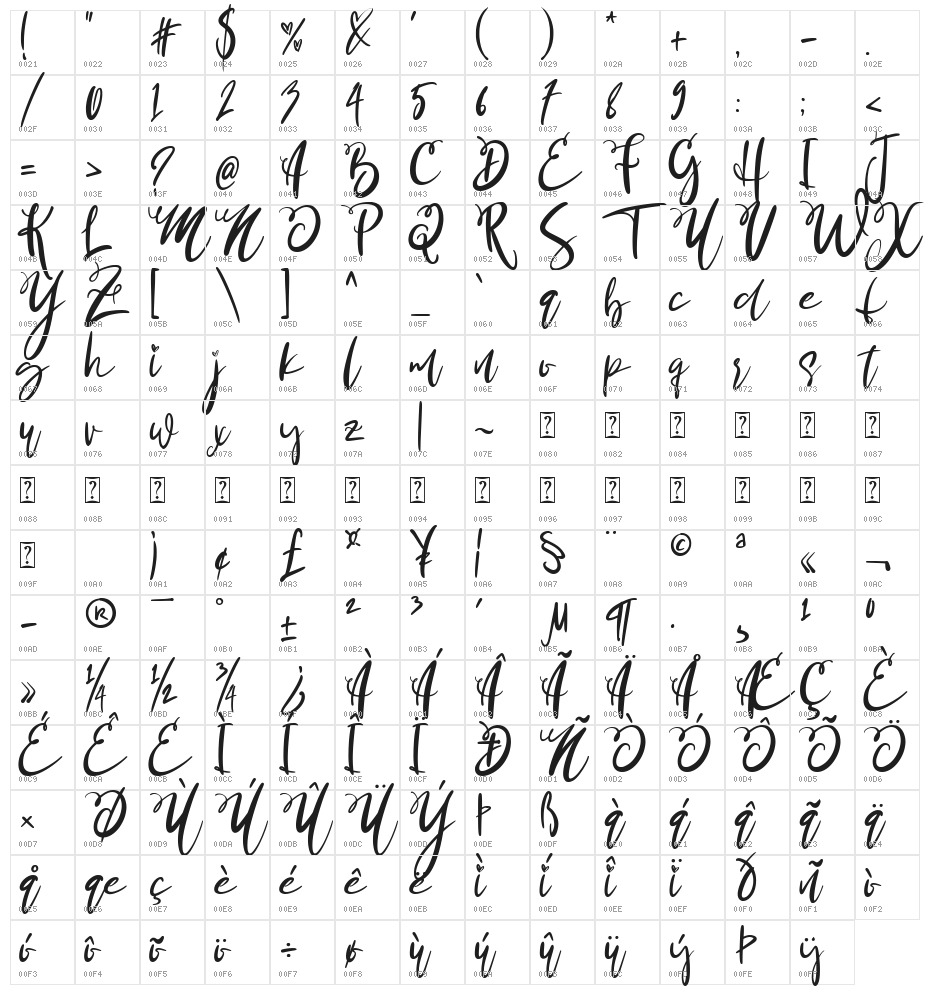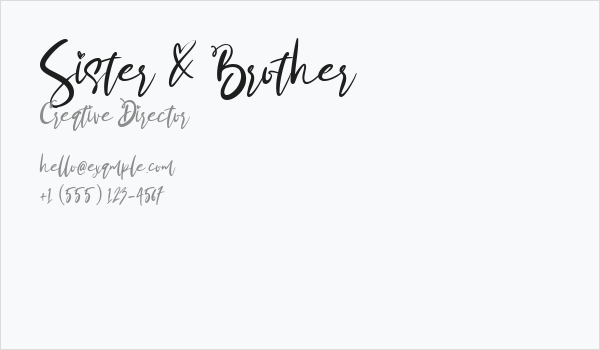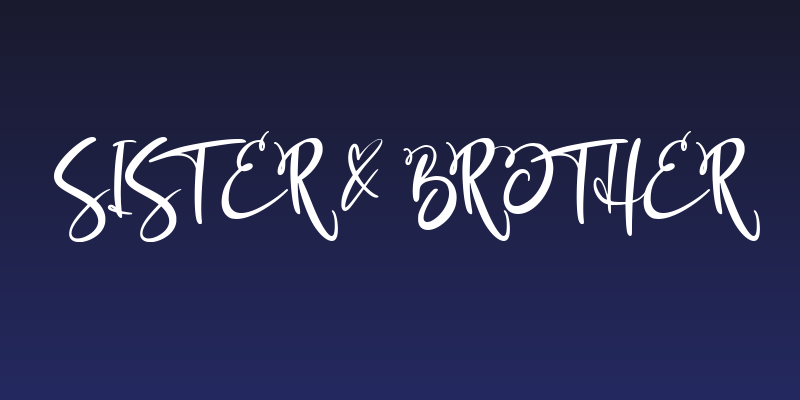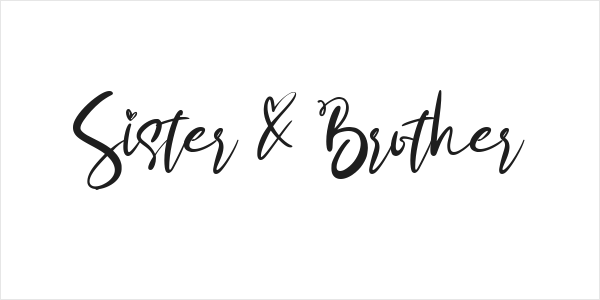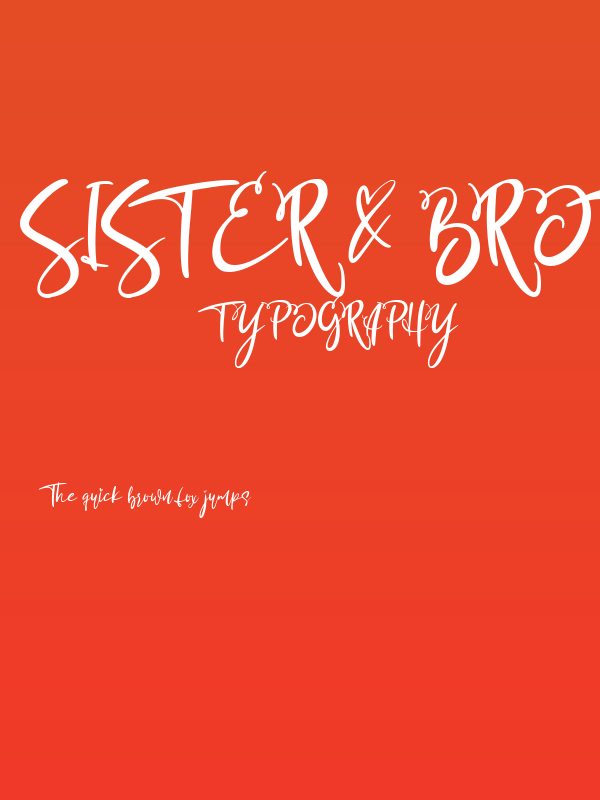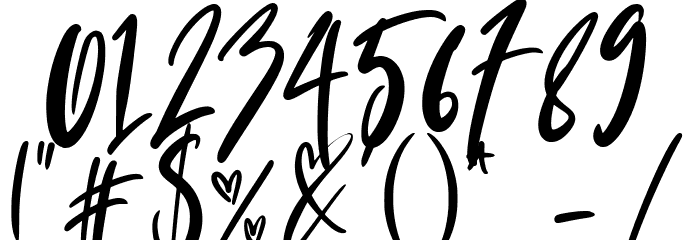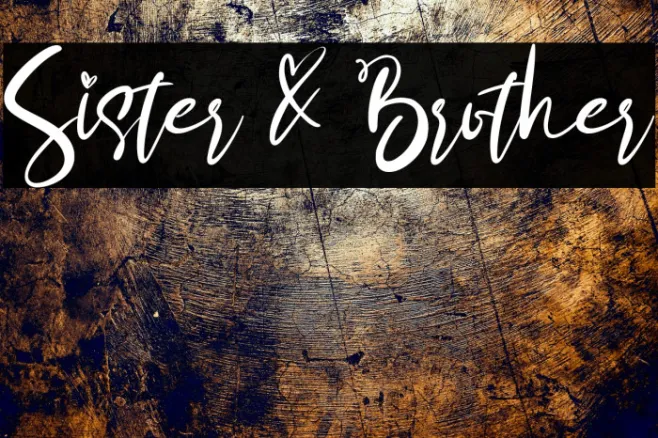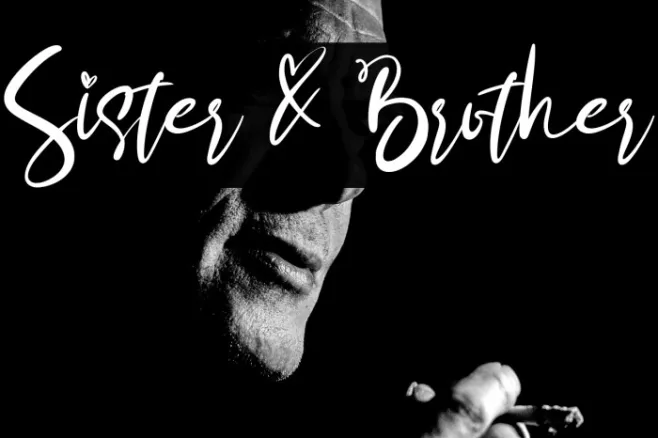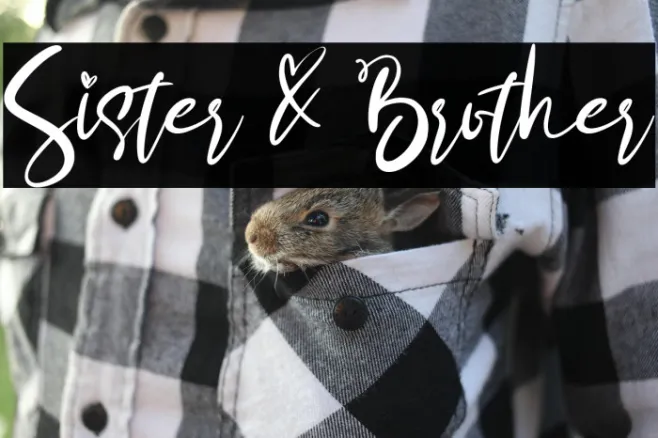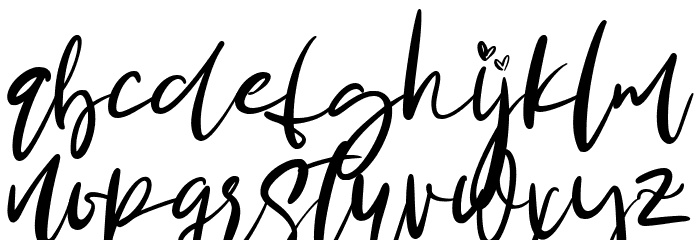
Sister & Brother Font
Sister & Brother Description
This font features a whimsical and playful script style, characterized by its flowing, cursive letters with decorative swirls and loops. The uppercase letters are bold and expressive, with unique embellishments that add a touch of elegance and creativity. The lowercase letters maintain a consistent flow, enhancing the overall fluidity of the font. Numbers and special characters are designed to match the playful yet sophisticated aesthetic, making them suitable for a variety of creative applications. The font's artistic flair is evident in its heart-shaped accents and dynamic strokes, which contribute to its distinctive personality.
| Proposed Projects | Ideal for wedding invitations, greeting cards, branding projects, and any design requiring a touch of elegance and creativity. |